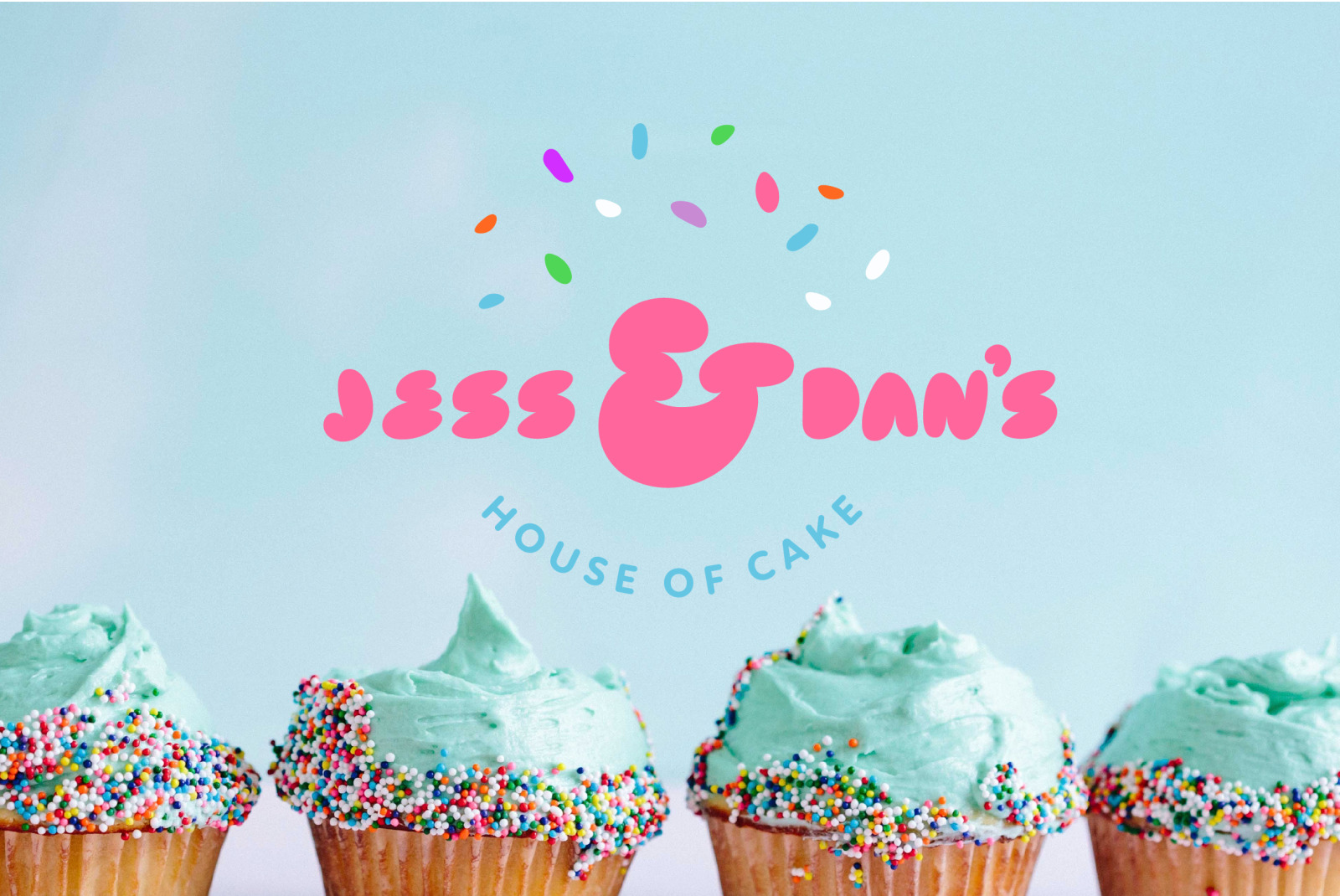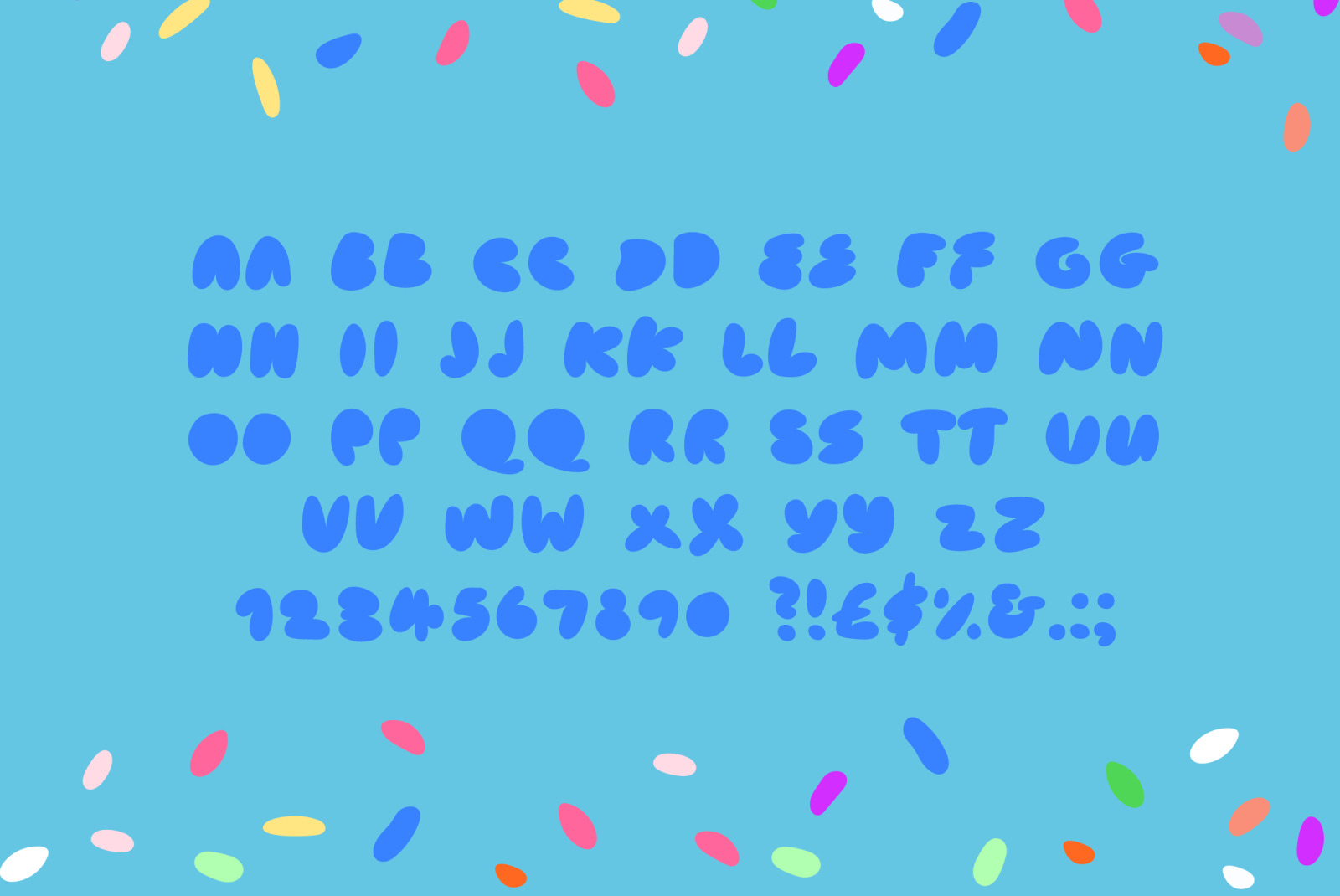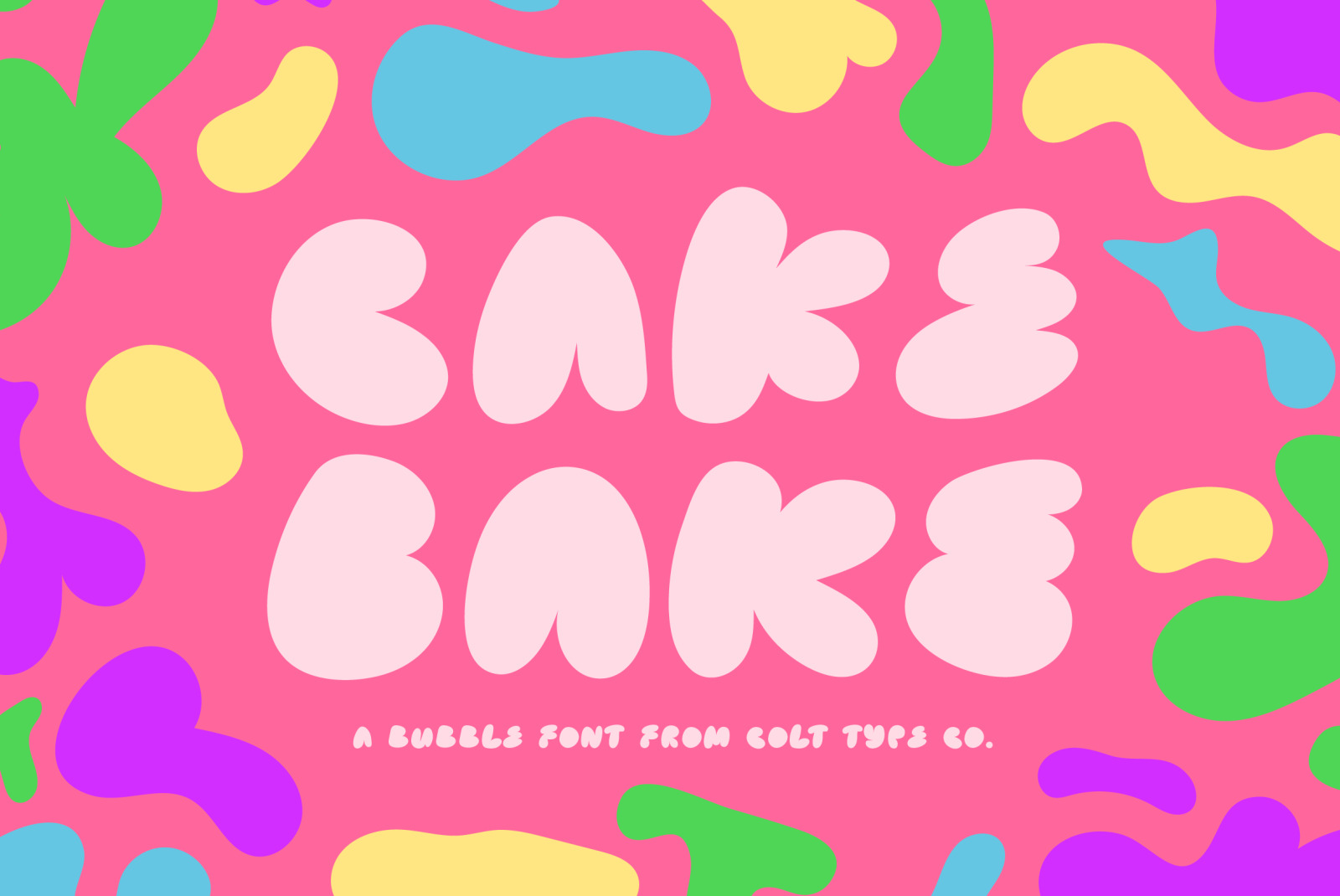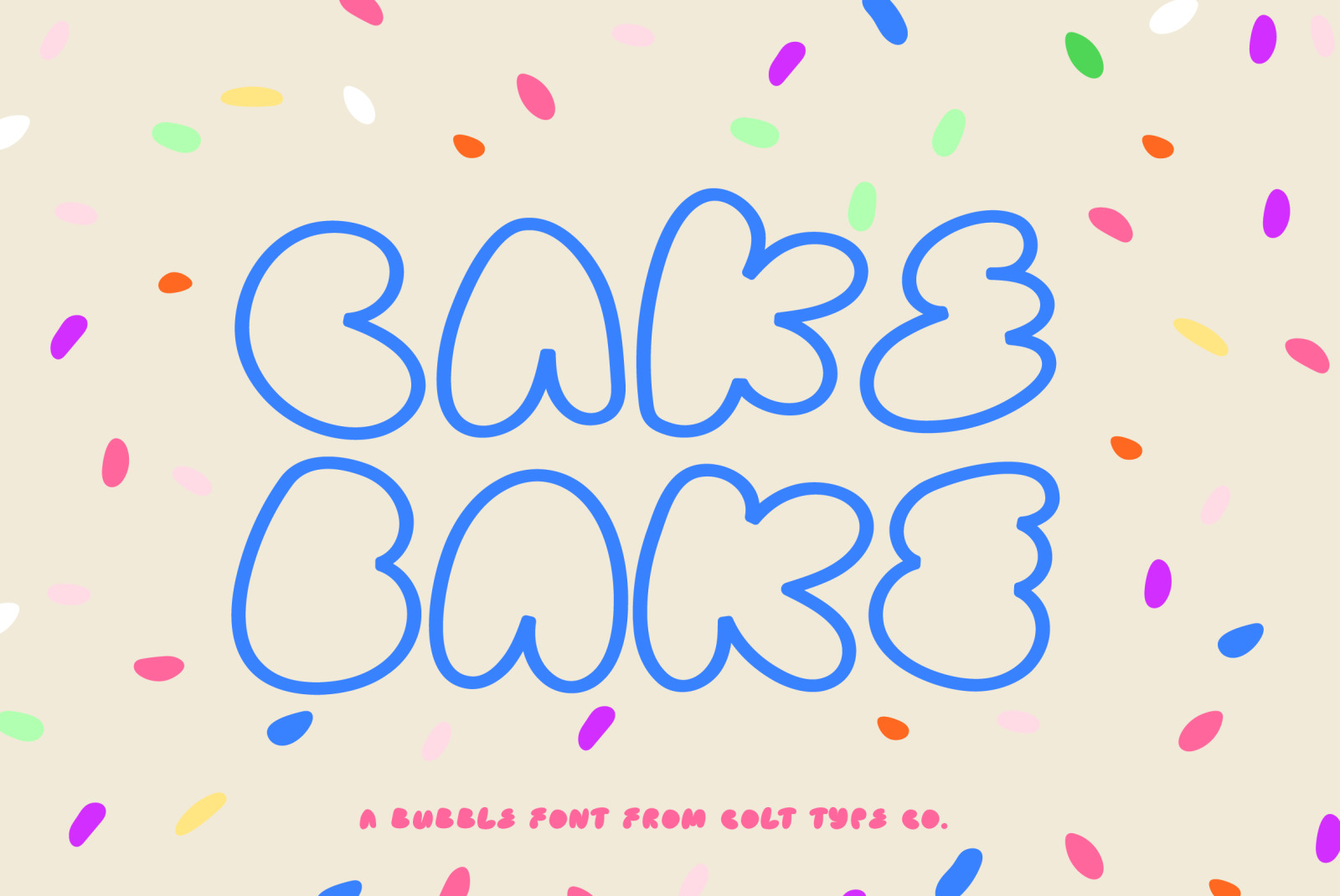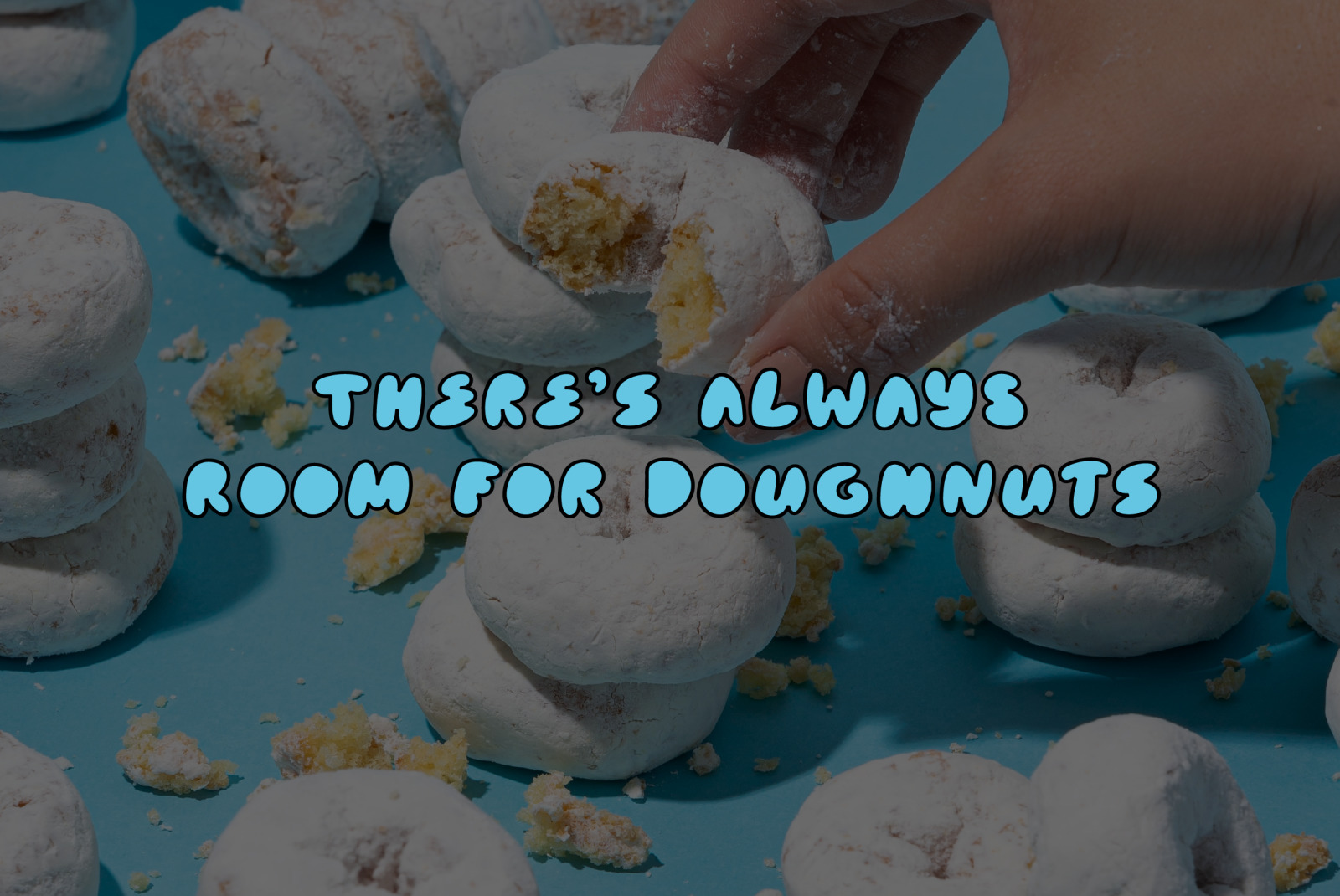
Cake Bake Font
Cake Bake Bubble Font.
There's always time for doughnuts!
Check out my latest display font - Cake Bake. It's a fun bubble font full of character, with 70's retro vibes. An all uppercase type (alternate uppers on the lowercase keys) hand drawn for a natural flow and feel.
Use this for logos, headings, book titles, quotes, or whatever you want to add a splash of cheeky, bold fun.
For good measure, I added an outline version... you're welcome.